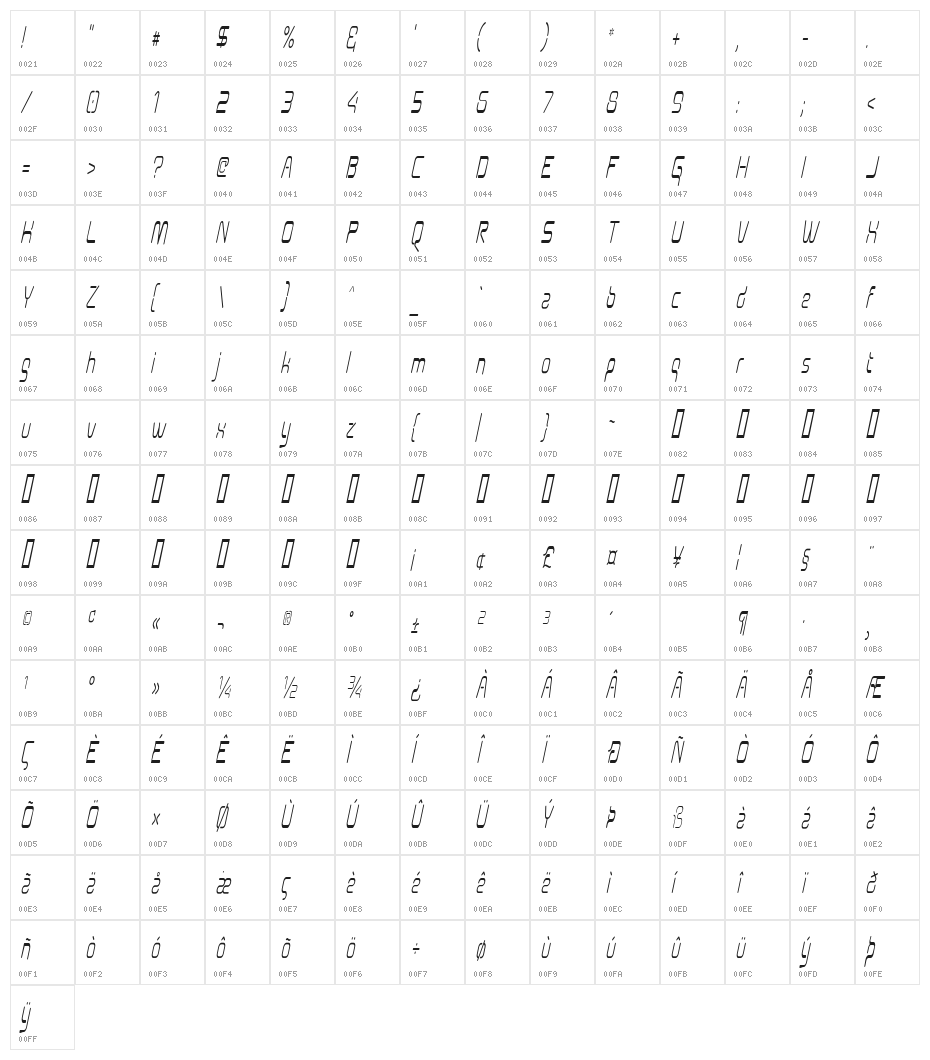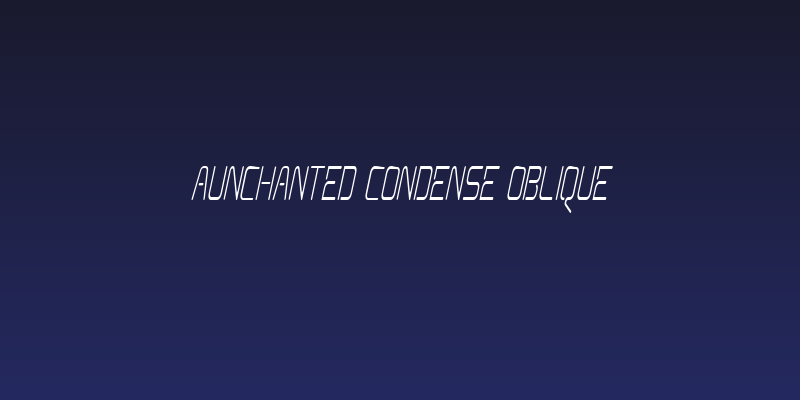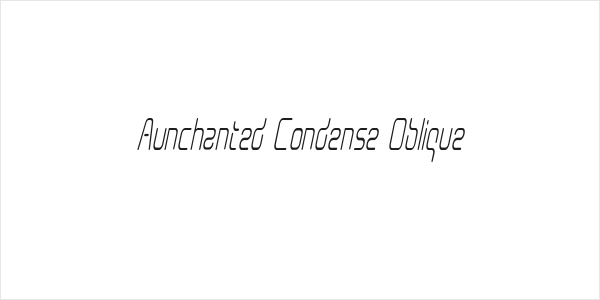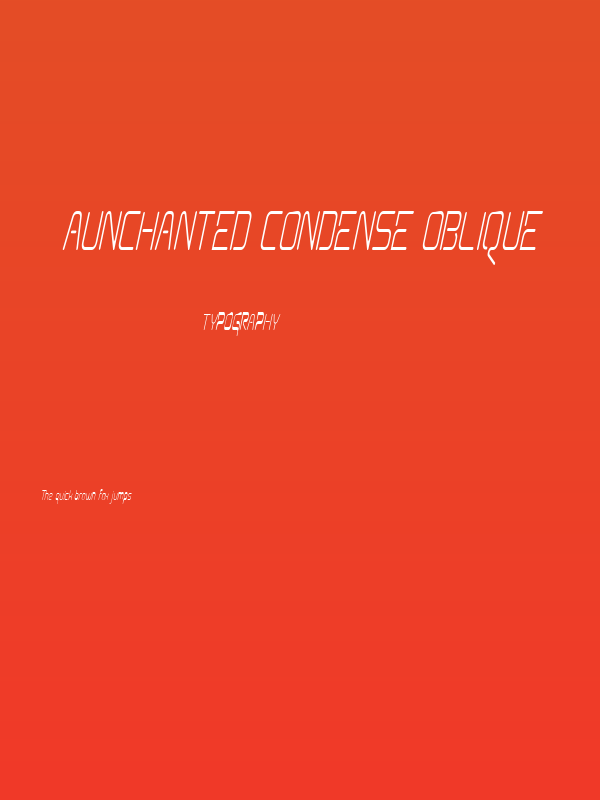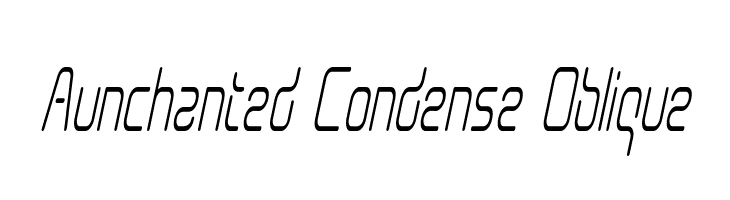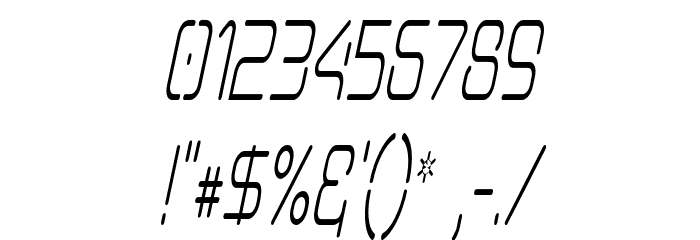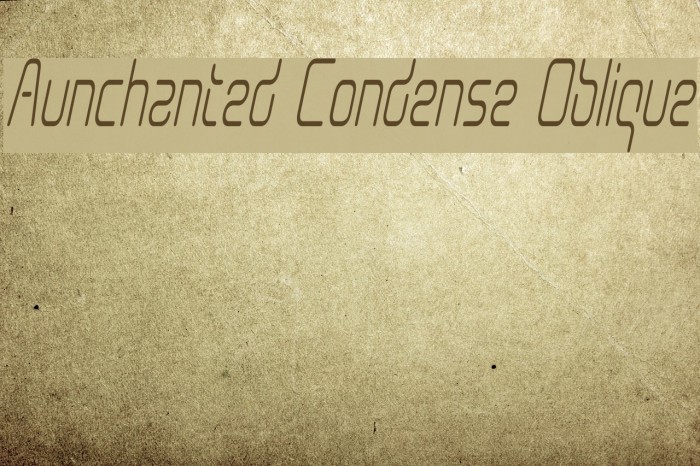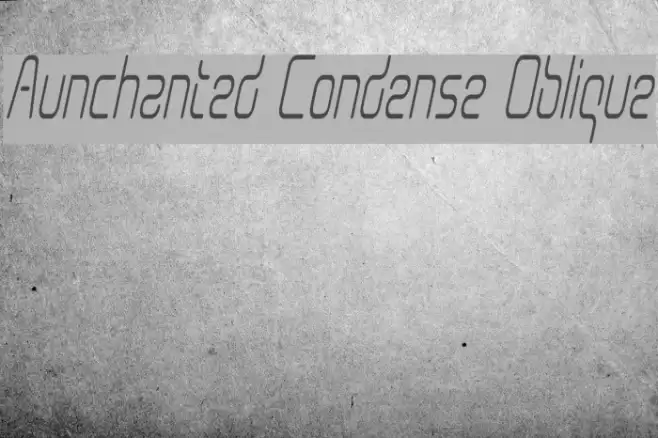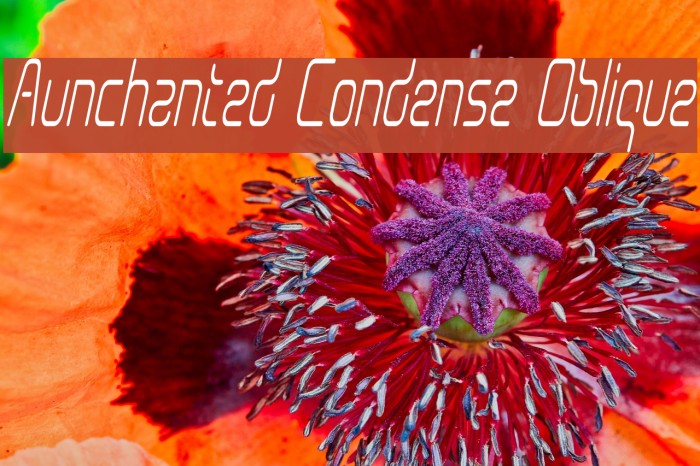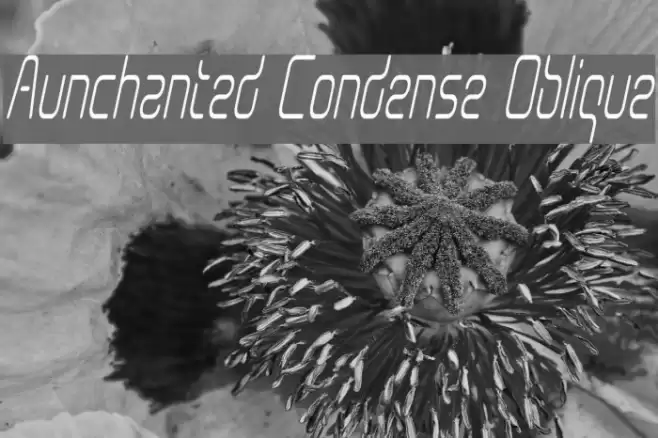
Aunchanted Condense Oblique Font
✎ Futuristic
Aunchanted Condense Oblique Description
This font features a sleek, modern design with a condensed and oblique style. The characters are elongated and slightly slanted, giving a sense of motion and dynamism. The uppercase and lowercase letters maintain a consistent height, contributing to a uniform appearance. The numerals are distinct and align well with the overall aesthetic. Special characters are crafted with the same attention to detail, ensuring they blend seamlessly with the alphabetic characters. The font's clean lines and geometric shapes make it suitable for contemporary design projects.
| Categories | Futuristic |
| Width | Condensed |
| Use Case | Headlines, Logos, Digital interfaces |
| Proposed Projects | Ideal for tech branding, modern advertising, futuristic posters, and digital interfaces. |